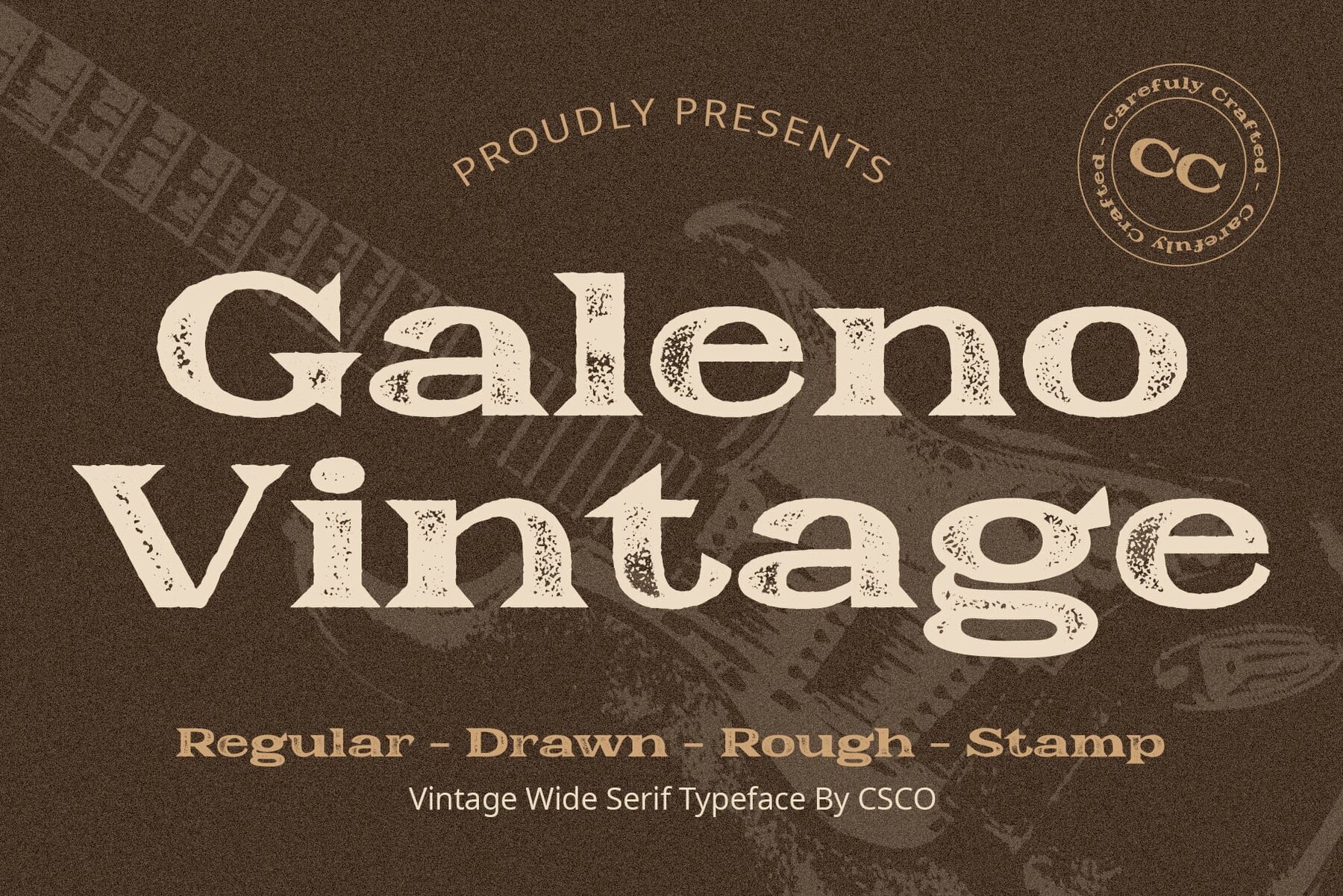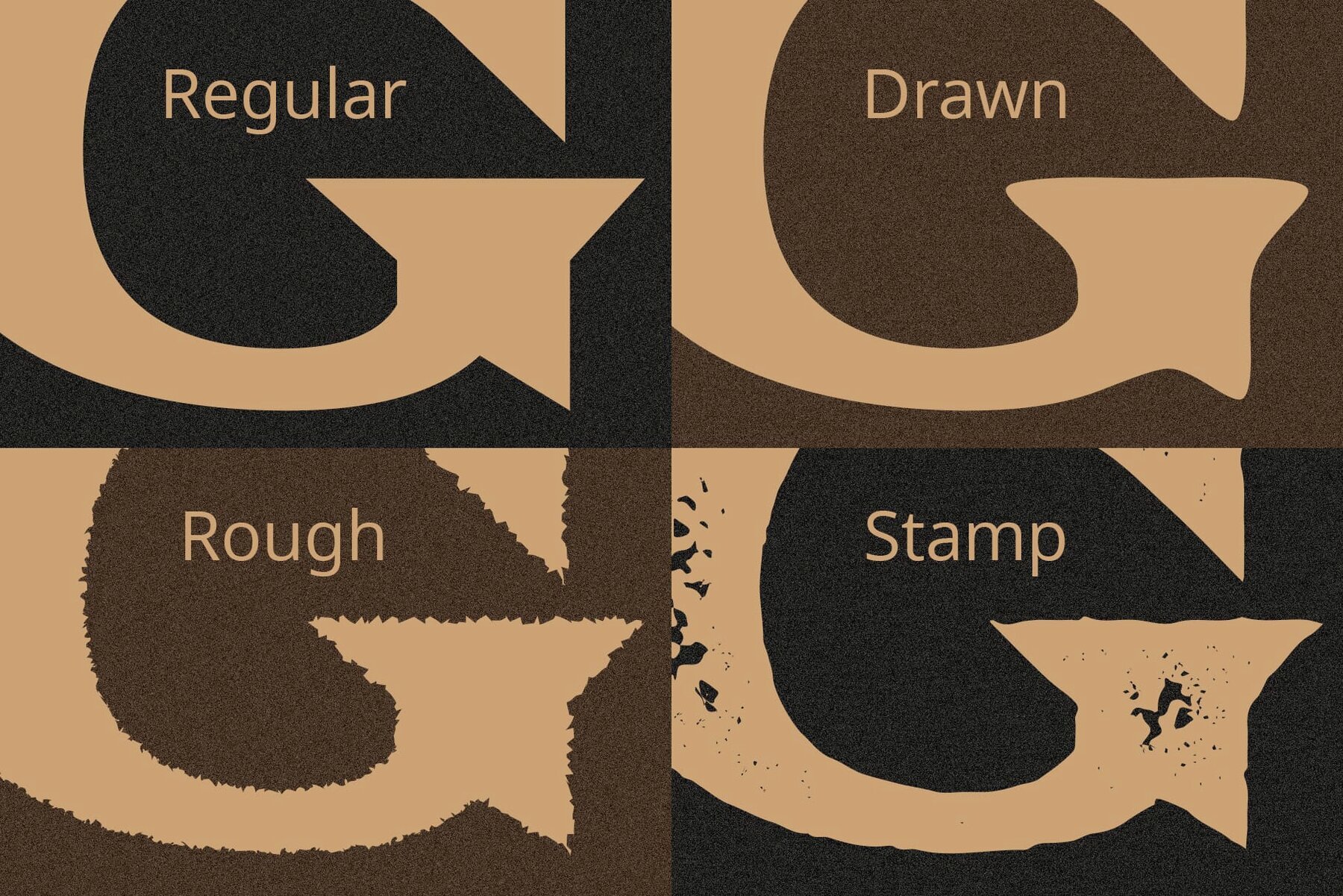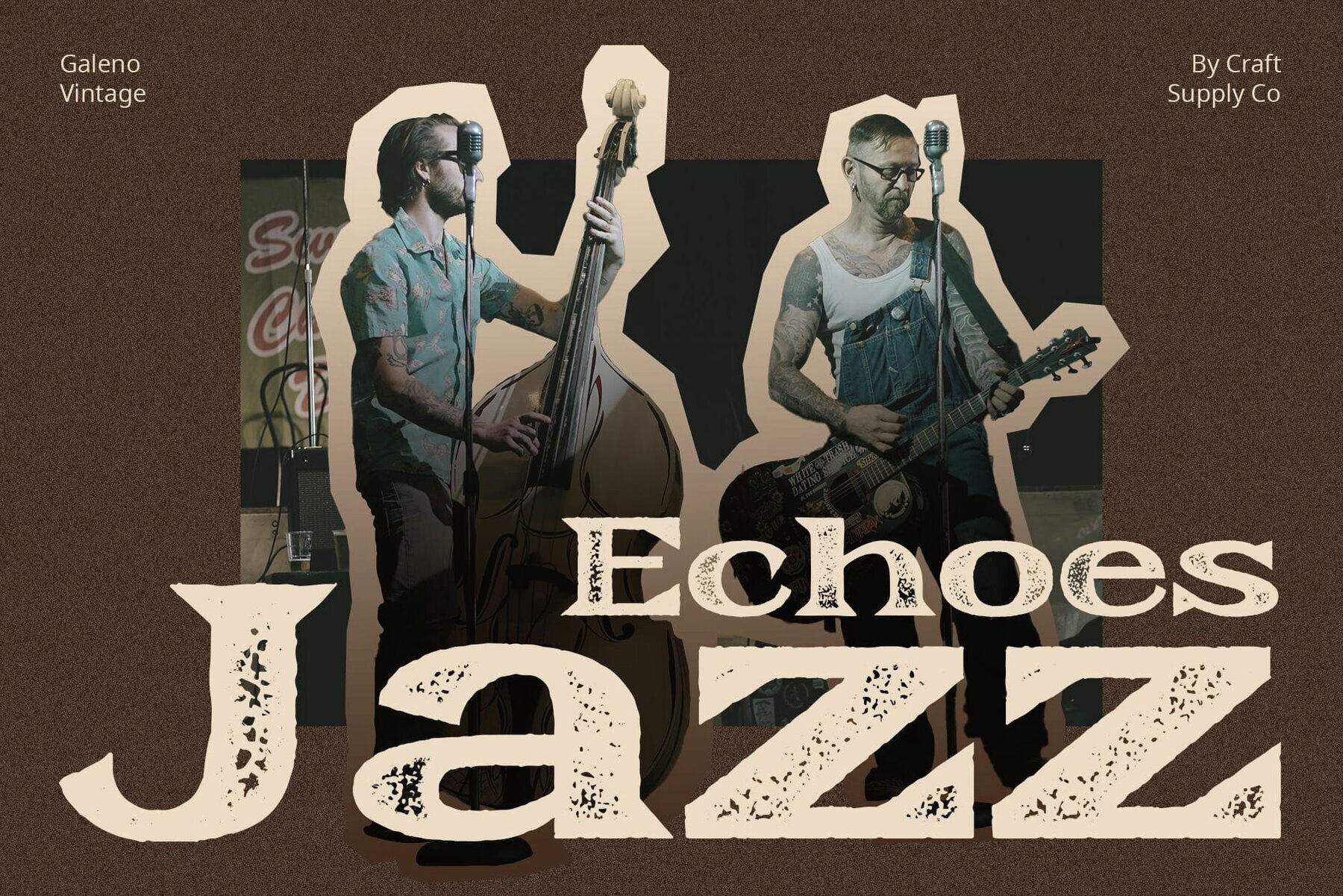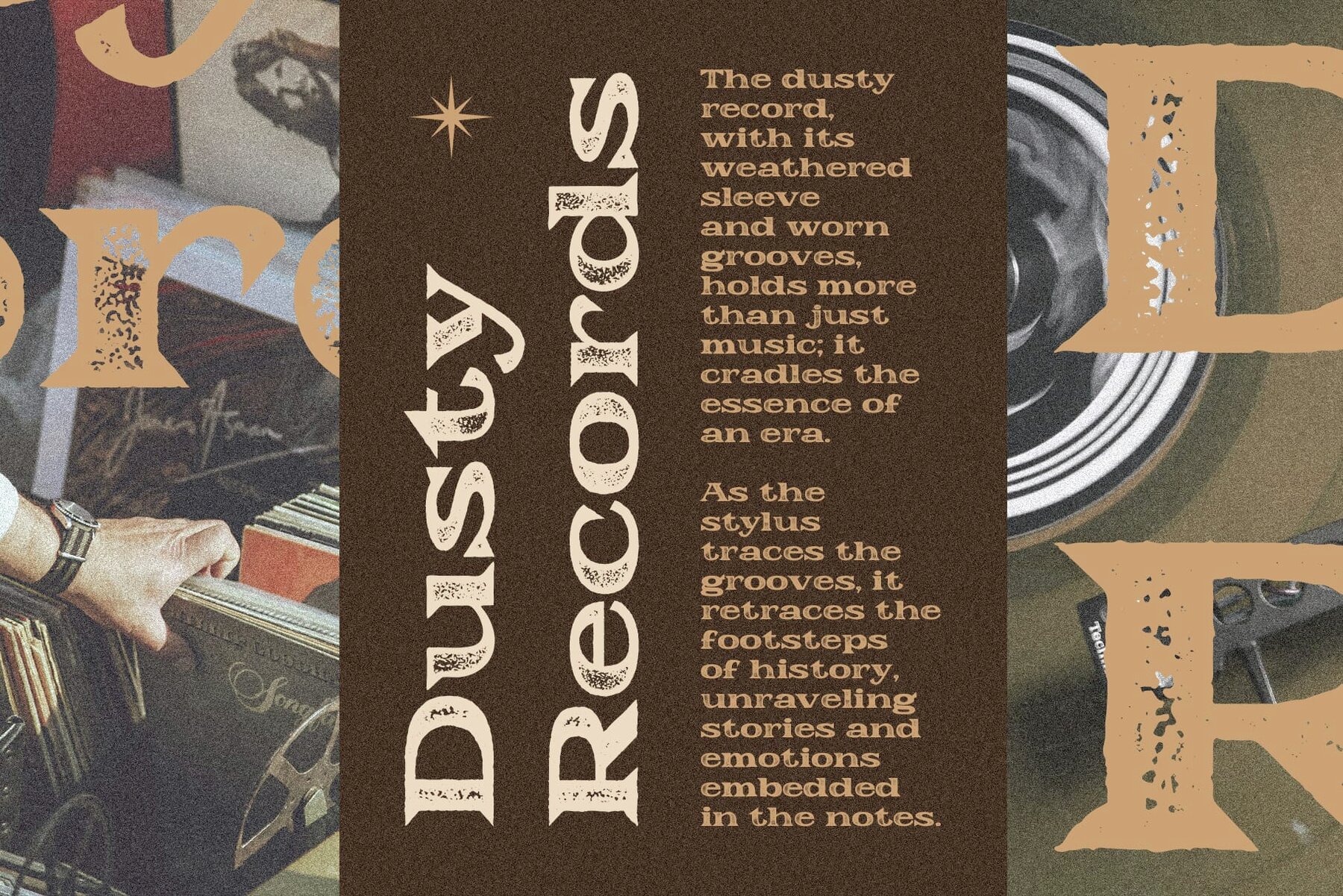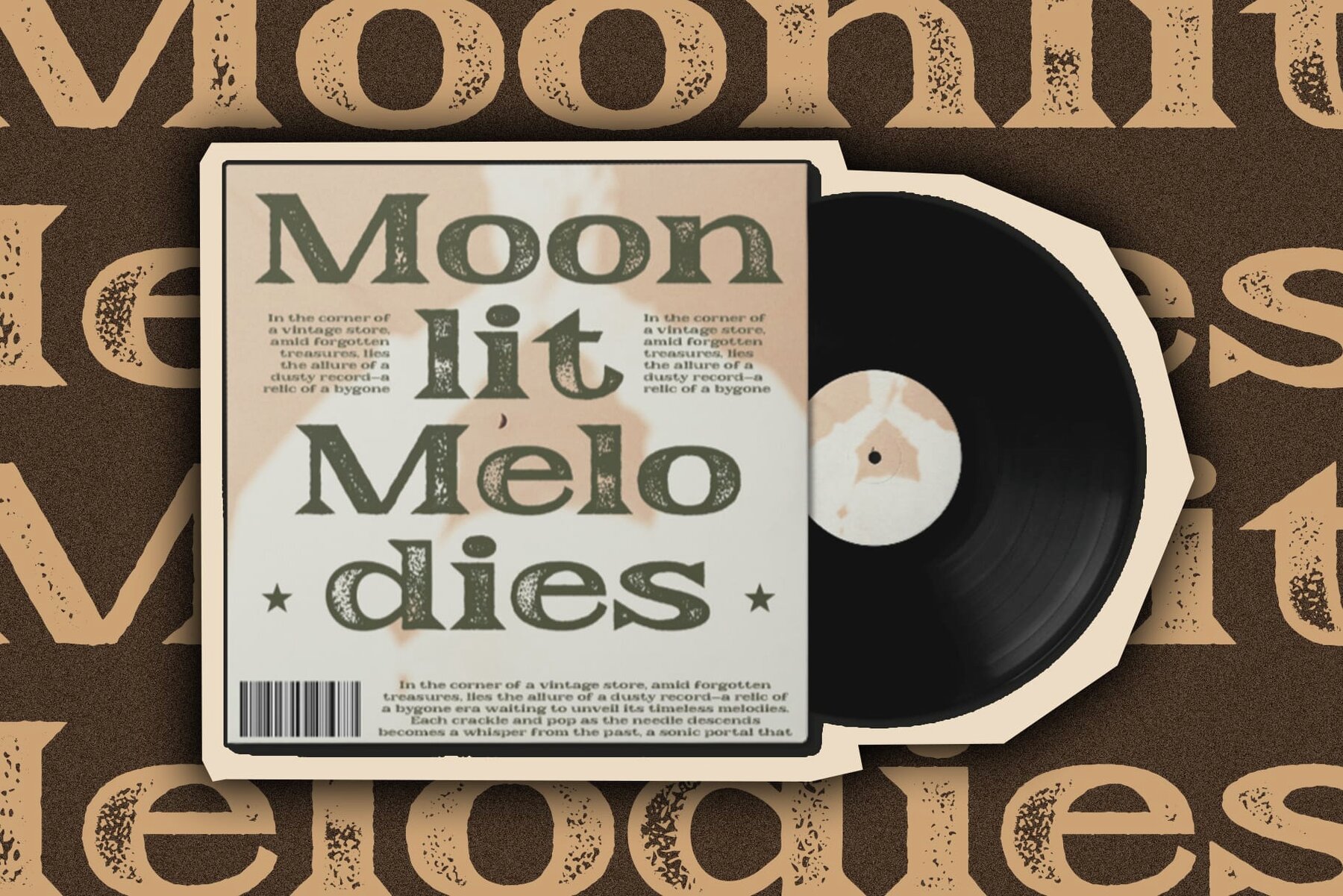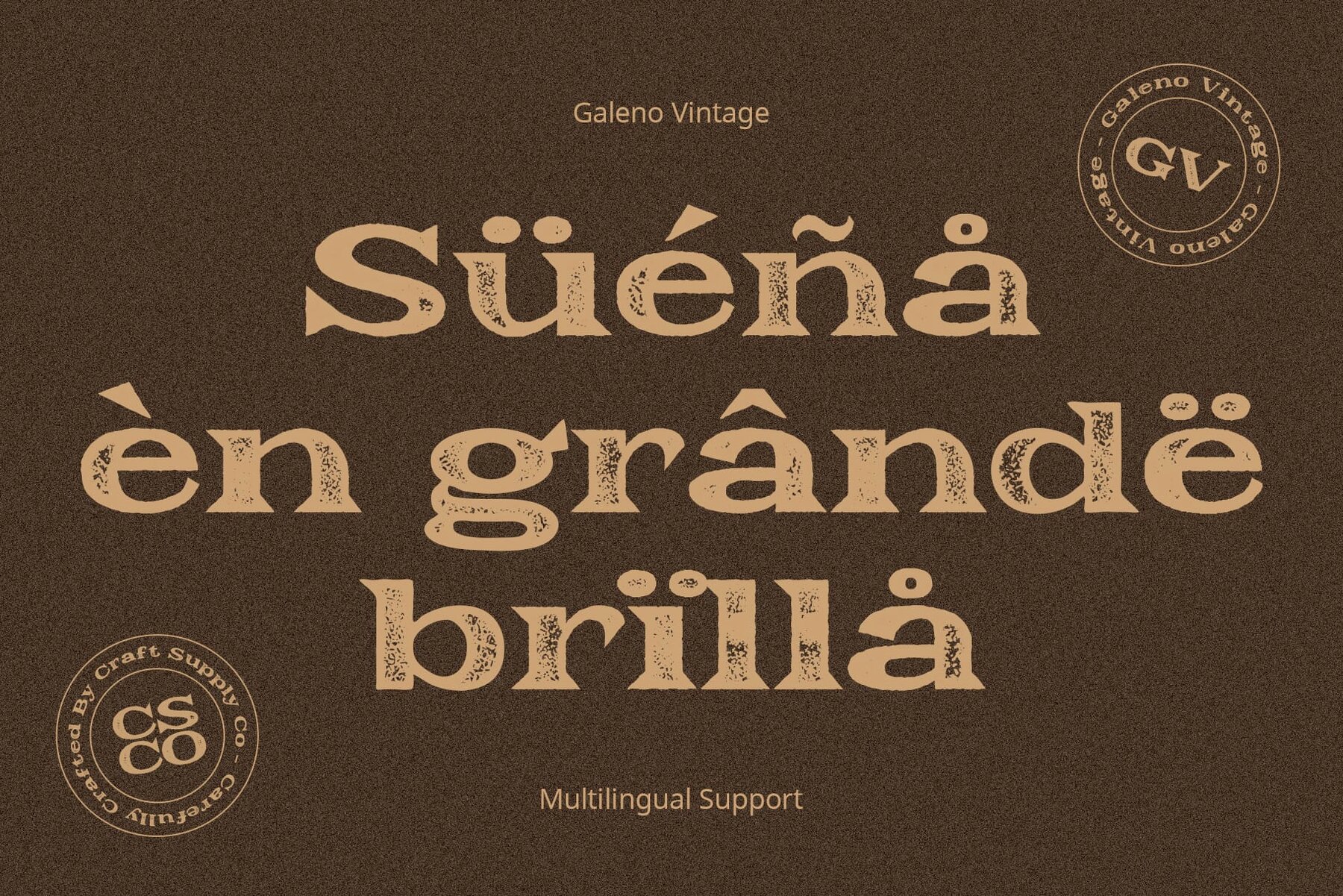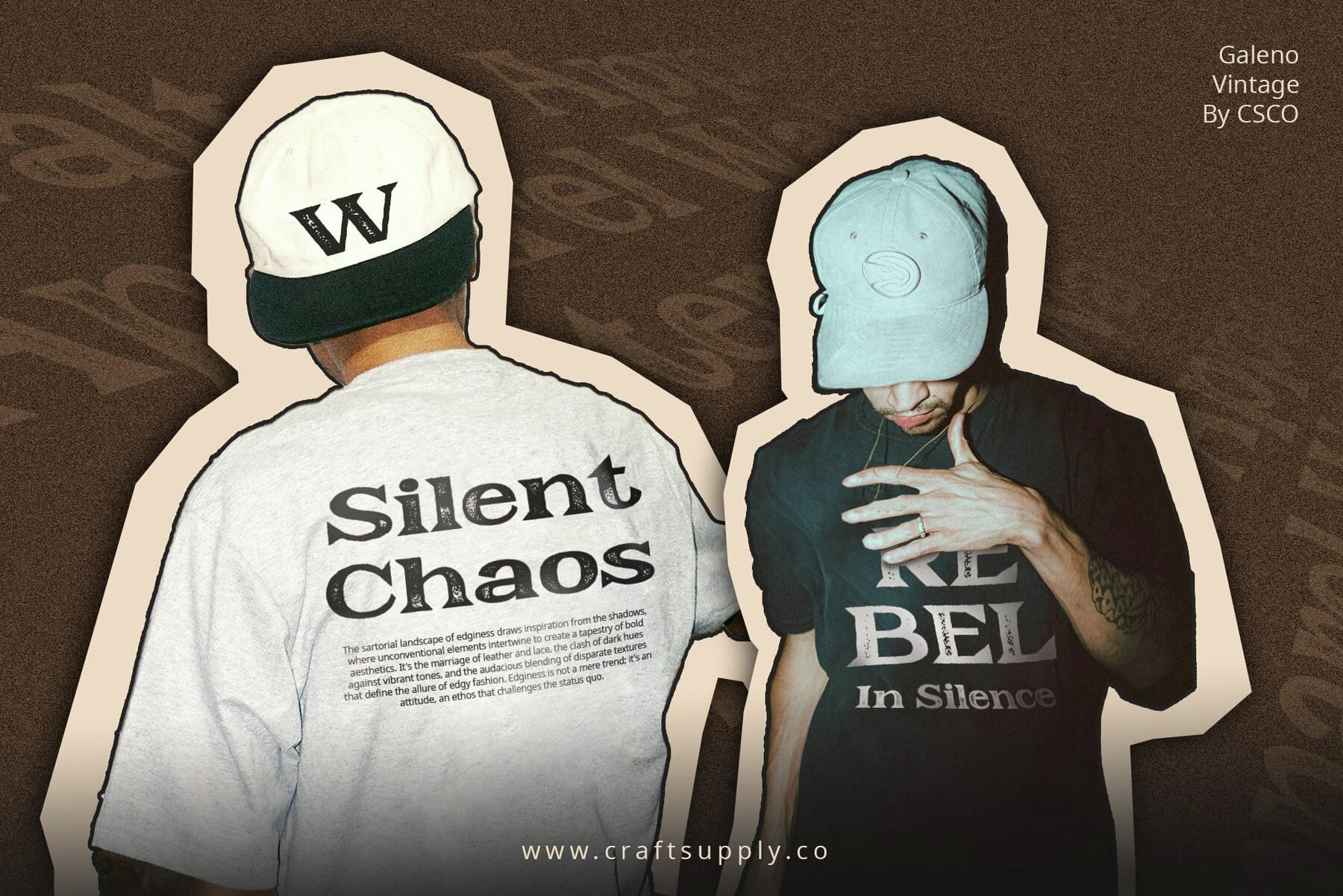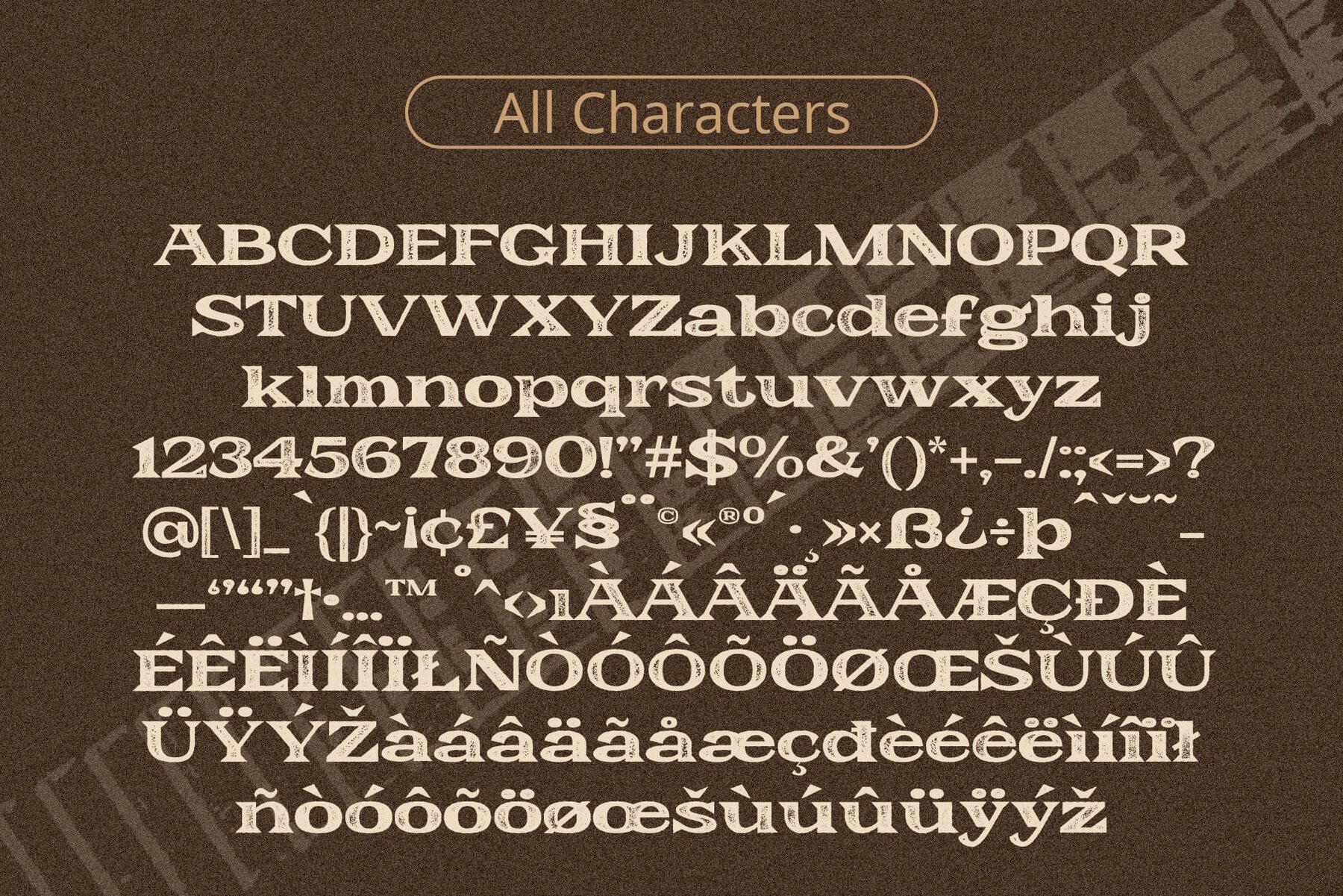
Galeno Vintage Font
Galeno Vintage by Craft Supply Co. captures the nostalgic charm of custom motorcycles, infusing a classic, old-world feel into every serif. Inspired by vintage aesthetics, it brings the essence of a bygone era to life. Whether you need it for posters or branding, Galeno Vintage offers a unique charm for diverse design projects. Its versatility adds a touch of classic elegance and rugged authenticity to any display application. No specialized software is needed to utilize this typeface. For any inquiries or assistance, please don't hesitate to get in touch. We appreciate your support in making your creative projects shine!Galeno Vintage: Reviving Classic Elegance
Key Characteristics
Versatility in Display
Galeno Variants